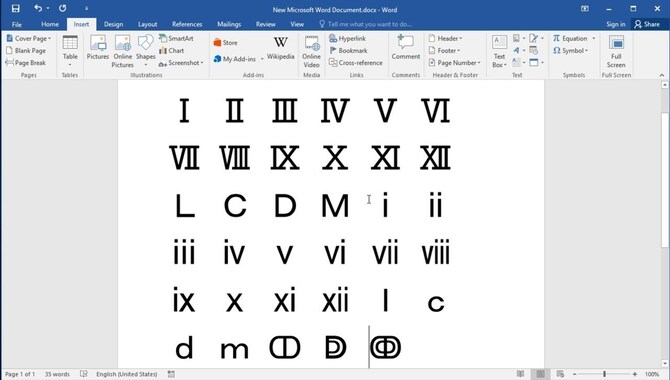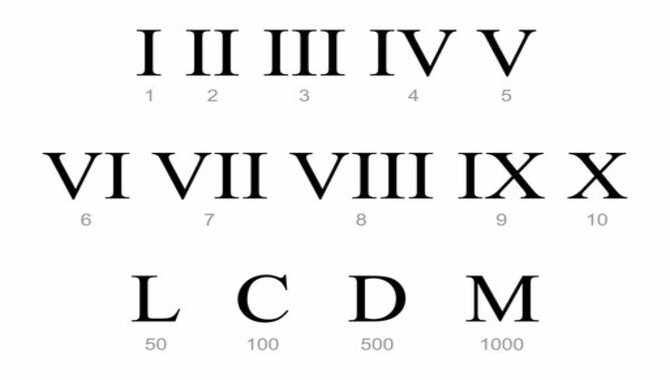
Font For Roman Numerals – All Details
There are a few things to consider when choosing a font for roman numerals. First, the font should be easily readable. Second, the font should have a consistent style throughout.
One of the most popular fonts for roman numerals is Times, New Roman. This font is easily readable and has a classic look. Another popular font is Arial. This font is also easily readable but has a more modern look.
When choosing a font for roman numerals, it is important to consider what the numerals will be used for. If the numerals will be used for a formal document, then a more traditional font like Times New Roman is a good choice. If the numerals will be used for a more casual document, then a more modern font like Arial is a good choice.
Font For Roman Numerals
What Is A Common Font For Roman Numerals?
What Is A Common Font For Roman Numerals
There are a few different fonts that are commonly used for roman numerals. The more popular ones include Times New Roman, Arial, and Helvetica. Roman numerals are typically used in a few different situations. One common use is for numbering the chapters in a book. They are also often used to number the pages in a document. Another common use is listing the year’s months in a calendar.
One real-life example of where you might see roman numerals is on a clock face. Many clocks use roman numerals to label the hours. This is a holdover from when clocks were first invented. The first clocks did not have numbers on the dial but used roman numerals.
How Do You Create A Font For Roman Numerals?
How Do You Create A Font For Roman Numerals
When creating a font for roman numerals, there are a few things you need to take into account. First, you must ensure that the font you create is easily legible. This means the letters should be well-formed, and the spacing between them should be consistent.
Secondly, you must ensure that the font you create can be used for upper- and lowercase letters. This means the letters should be the same height and width, and the font should not be italicized. Finally, it would be best to ensure that the font you create can be used for both left-to-right and right-to-left writing. This means that the letters should be mirror images of each other.
Once you have considered these factors, you can start creating your font. You will need a vector graphics editor such as Adobe Illustrator to do this. First, open a new document and set the width and height to the desired size. Next, use the pen tool to draw out each alphabet letter. Make sure to draw the letters with consistent strokes and leave enough space between them. Once you have all the letters drawn out, you can add any additional details, such as serifs or flourishes. Finally, save your document as a .ai file, and you’re done!
Now that you know how to create a font for roman numerals, let’s look at an example. For this example, we’ll be creating a simple font that can be used for both upper and lowercase letters. First, open up a new document in Adobe Illustrator and set the width and height to 1000px by 1000px. Next, use the pen tool to draw out each alphabet letter. Make sure to draw the letters with consistent strokes and leave enough space between them.
Once you have all the letters drawn out, you can add any additional details, such as serifs or flourishes. Finally, save your document as a .ai file, and you’re done! Now that you know how to create a font for roman numerals, you can use this knowledge to create your fonts for other purposes. For example, you could create a font for a sign that says “Welcome to my home!” or for a piece of art you’re working on. The possibilities are endless!
What Are Some Tips For Creating A Font For Roman Numerals?
What Are Some Tips For Creating A Font For Roman Numerals
When creating a font for roman numerals, there are a few things you’ll want to keep in mind. First, you’ll want to ensure the font is easily legible. This means using clear, simple shapes and avoiding any overly ornate details. Secondly, you’ll want to ensure the font works well in large and small sizes.
This is especially important if you use the font for digital applications. And lastly, you’ll want to ensure the font has good “hinting”. This refers to adding instructions to the font to render correctly on the screen. With these tips in mind, let’s look at a few examples of well-designed roman numeral fonts.
One great example of a well-designed roman numeral font is “Numerals” by Neil Summerour. This font is a great choice for a clear and simple design. The shapes are all very clean, and the font works well in large and small sizes. Another great option is “Roman Numerals” by Jost Hochuli. This font is slightly more ornate than “Numerals” but remains highly legible. It’s a great choice for those looking for a font with more personality.
And lastly, we have “RNS Camber” by RNS Design Studio. This font is a great choice for those looking for a highly legible font with good hinting. The shapes are very clean, and the font renders beautifully on screen. So there you have it! Three great examples of well-designed roman numeral fonts. So whatever your needs, there’s sure to be a font out there that’s perfect for you.
These are just a few of the most common errors people make when creating a font for roman numerals. By being aware of these errors, you can avoid making them yourself and ensure that your roman numerals are correctly written. If you still have questions about using Roman numerals, please comment below.